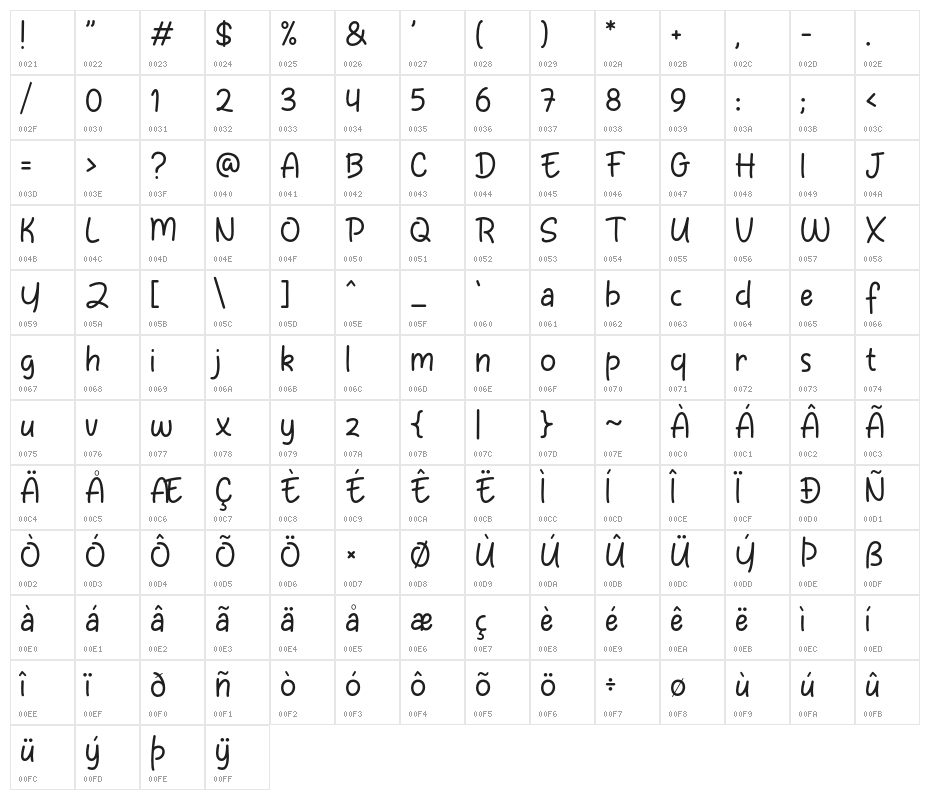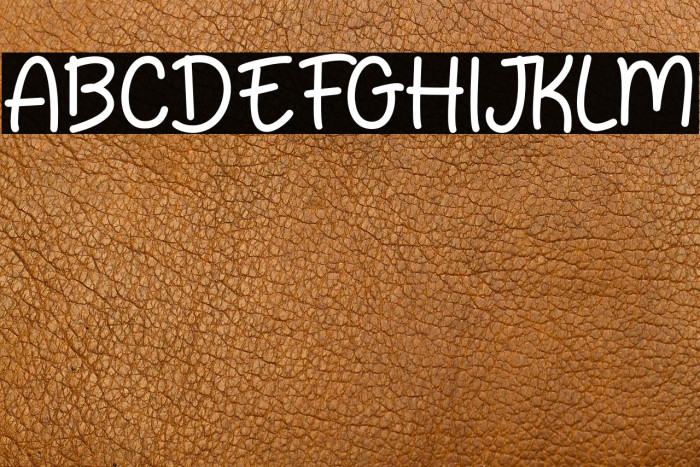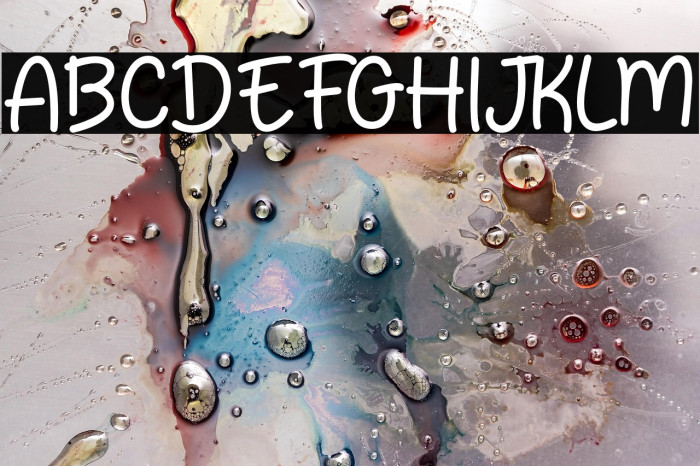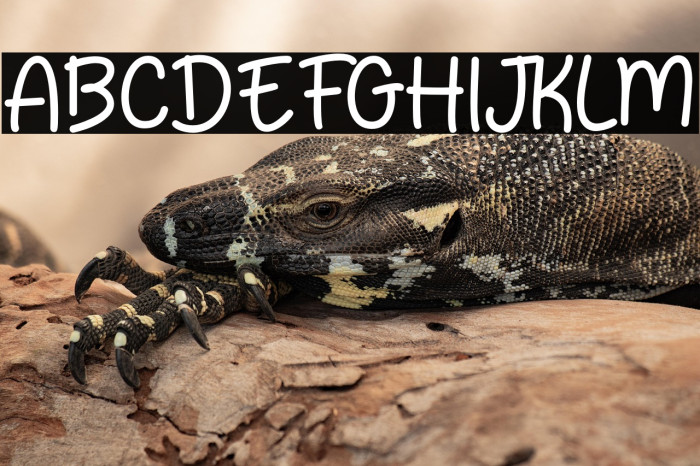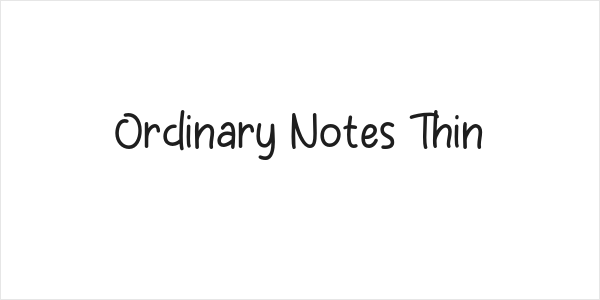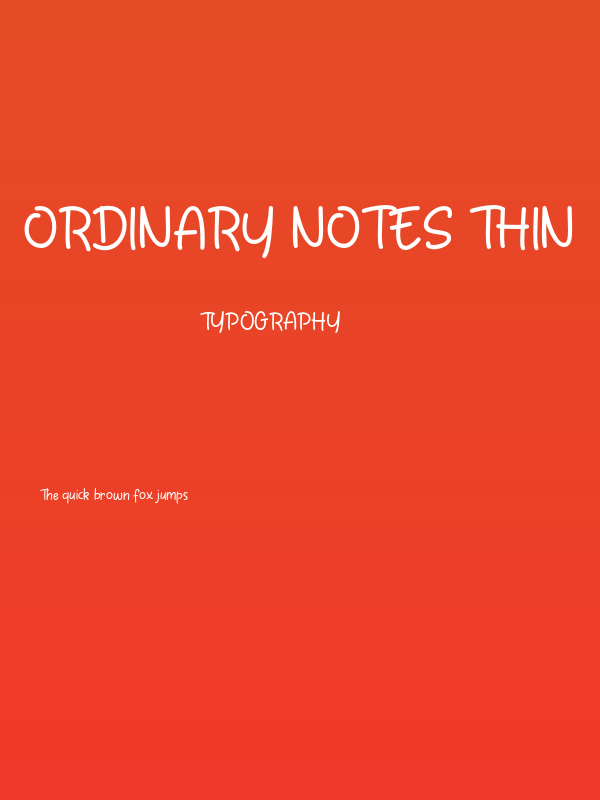
Ordinary Notes Thin Font
Ordinary Notes Thin Description
This font features a playful and casual handwritten style, characterized by smooth, rounded strokes that give it a friendly and approachable appearance. The letters are slightly slanted, adding to the informal feel, while maintaining legibility. The consistent stroke width throughout the characters provides a uniform look, making it suitable for a variety of creative projects. The numerals and special characters are designed to match the overall style, ensuring cohesiveness across different text elements.
| Proposed Projects | Ideal for greeting cards, children's books, personal blogs, and informal branding. |